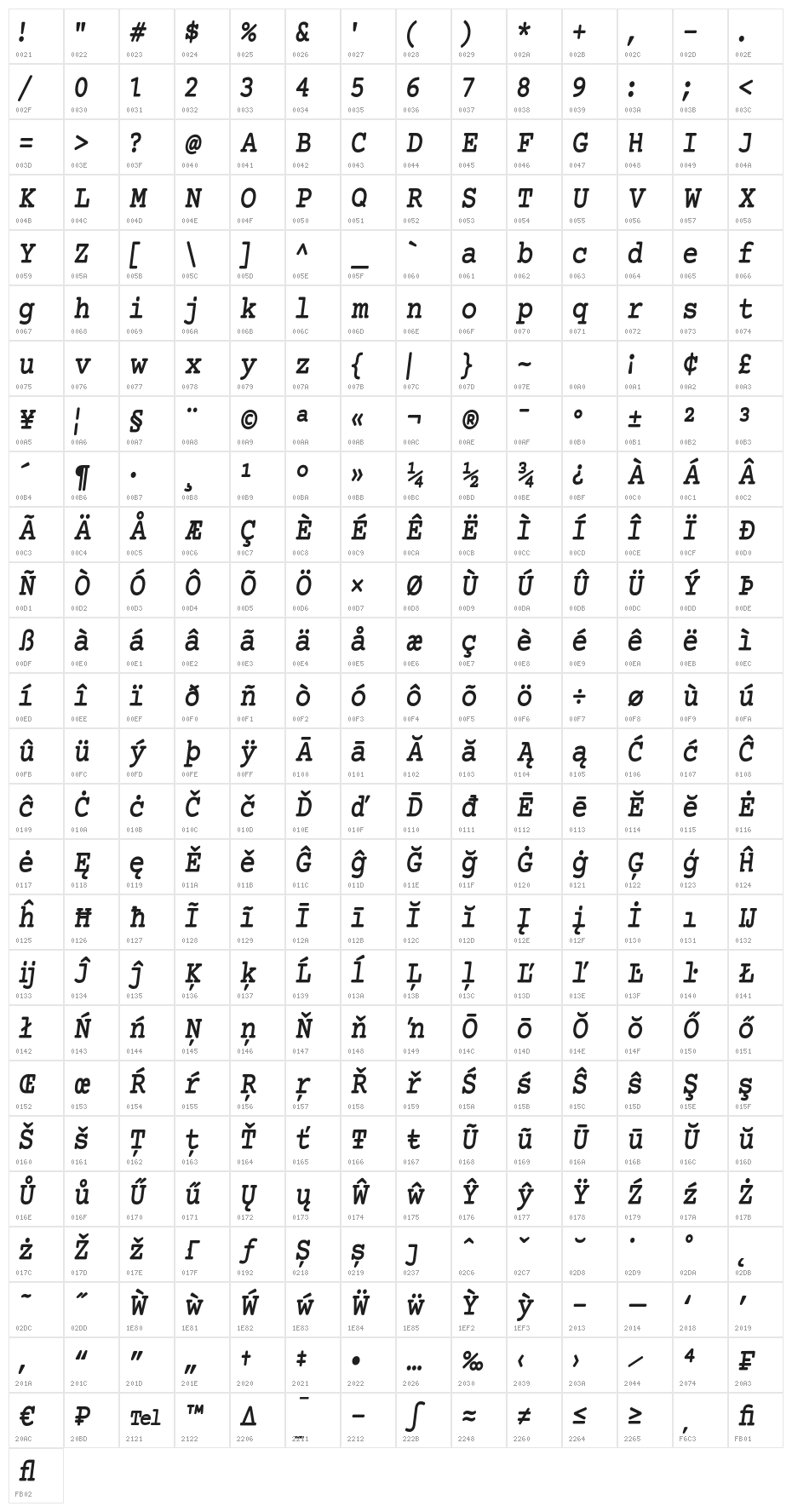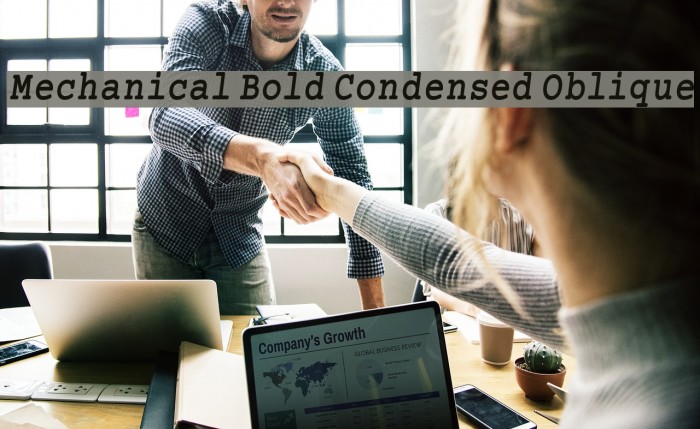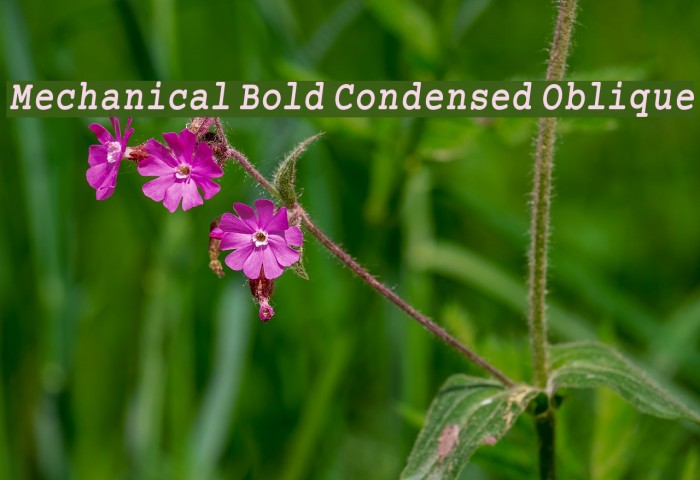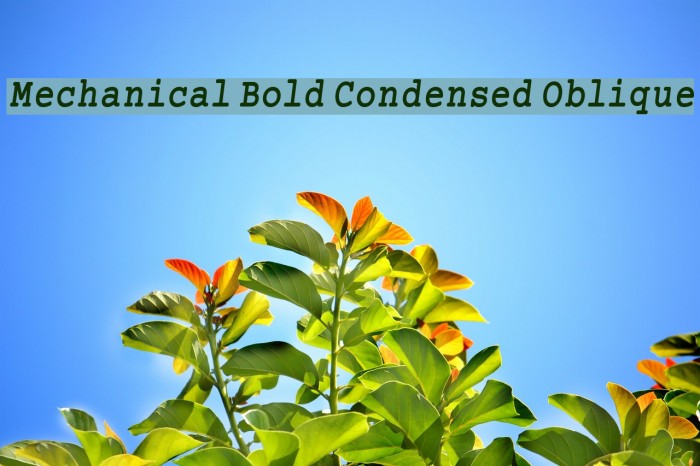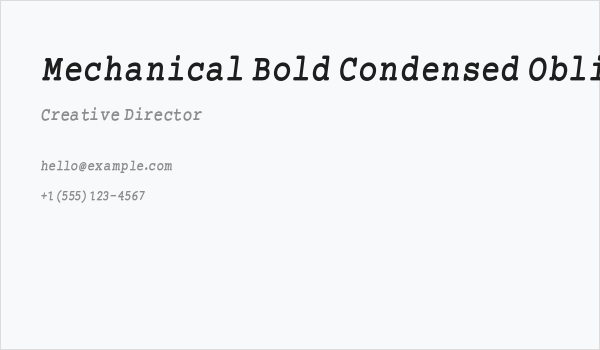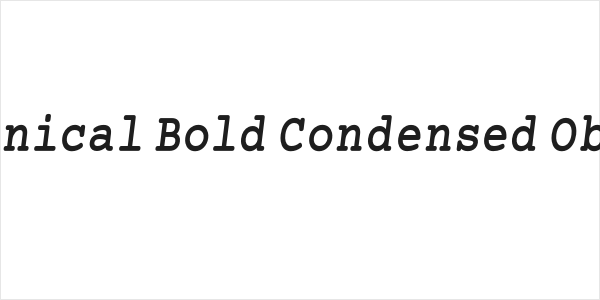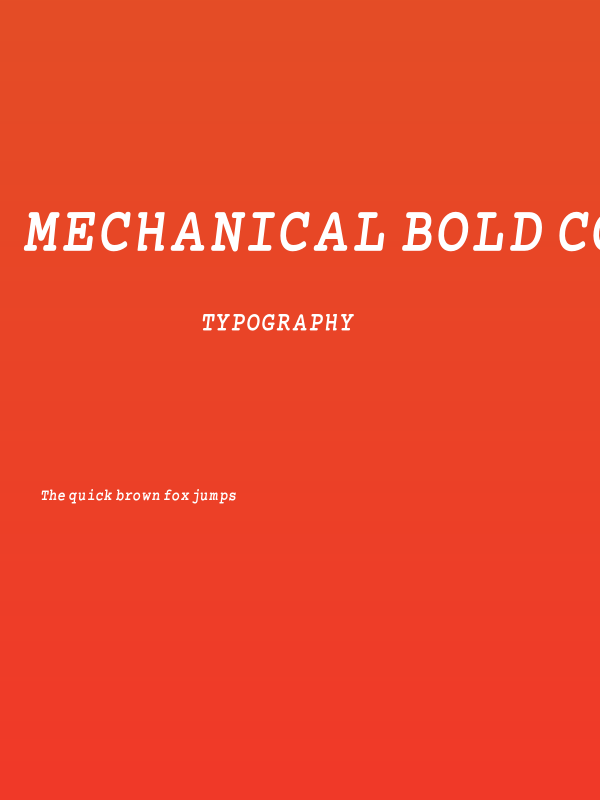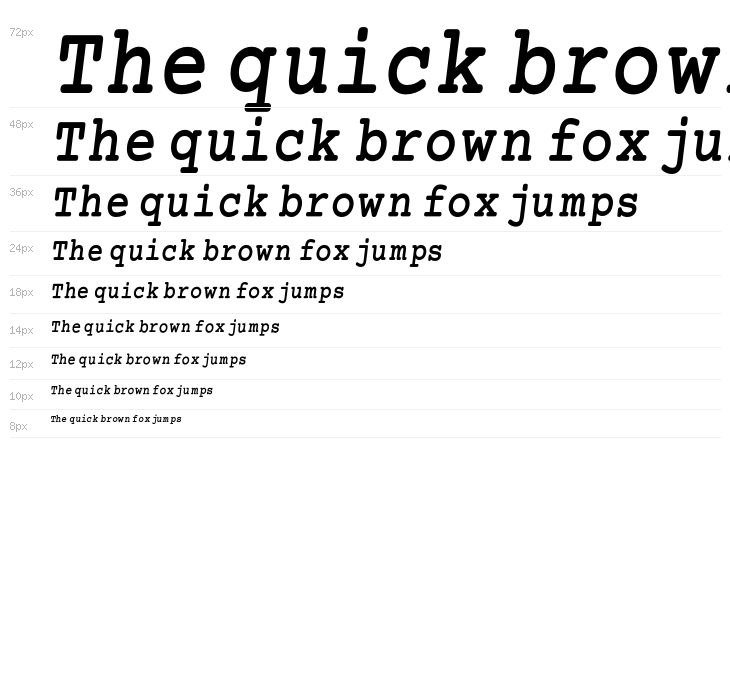
Mechanical Bold Condensed Oblique Font
Mechanical Bold Condensed Oblique Description
This font features a bold and condensed style with an oblique slant, giving it a dynamic and assertive appearance. The characters are tightly spaced, enhancing its compact look. The strokes are consistent in weight, providing a uniform and solid feel. The font's design is modern and mechanical, with a slight curvature in some letters that adds a touch of elegance. It is highly legible, making it suitable for various applications where clarity and impact are essential. The numerals and special characters maintain the same bold and condensed characteristics, ensuring consistency across all elements.
| Proposed Projects | Ideal for headlines, posters, branding, and any design requiring a strong, impactful typeface. |